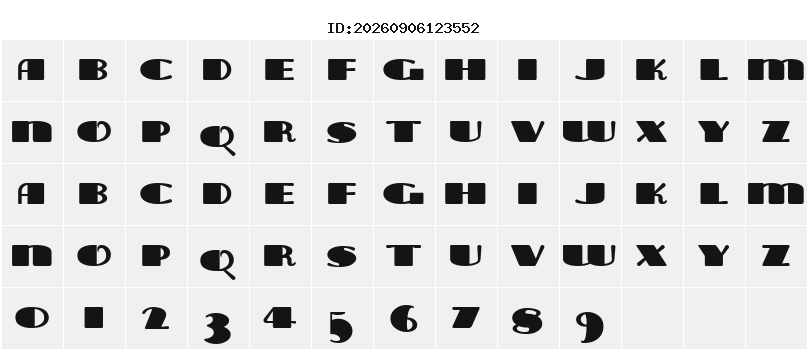
Tara Bulbous Capital Preview
• Font Name: Tara Bulbous Capital
• Full Font Name: Tara Bulbous Capital
• PostScript Name: TaraBulbousCapital
About Tara Bulbous Capital.ttf
Tara Bulbous Capital.ttf is a modern, elegant sans-serif font designed for ultimate readability and visual harmony. Perfect for branding, headlines, web design, and print materials.